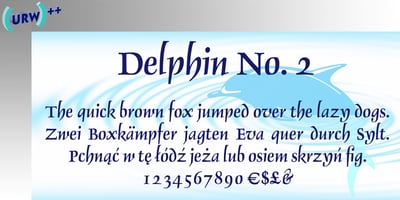
Delphin No2 Font Family was designed by Georg Trump and published by URW Type Foundry. Delphin No2 contains 1 styles and family package options. Delphin is a calligraphic font with upright capitals and slightly inclined lowercase. Delphins ascenders are tall and a number of letters have tails which descend below the baseline. Delphin is a useful face in advertising for short texts and display. Delphin is a trademark of Linotype Corp. and may be registered in certain jurisdictions in the name of Linotype Corp. or its licensee Linotype GmbH.